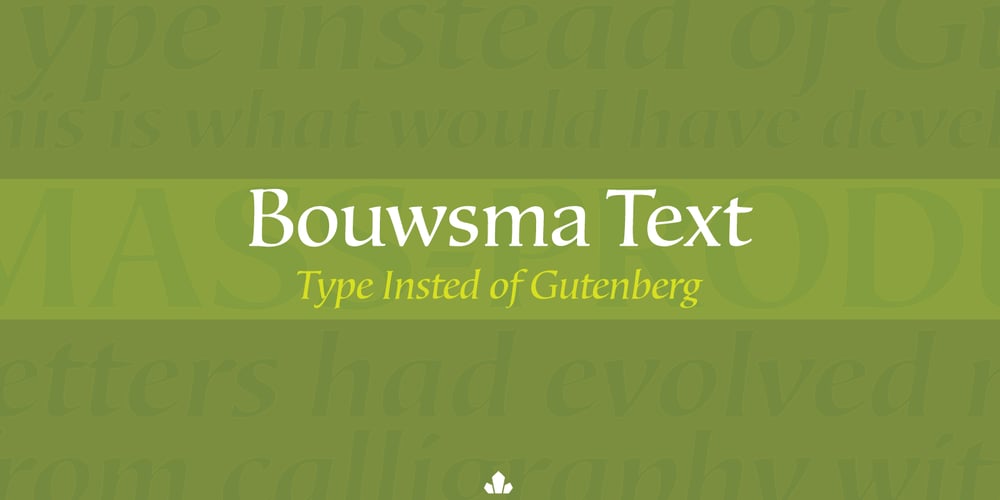
Bouwsma Text
Bouwsma Text font
Bouwsma Text Font Family was designed by Philip Bouwsma and published by Canada Type. Bouwsma Text contains 32 styles and family package options. Bouwsma Text is what Roman type would look like if it had been designed by calligraphers instead of metalworkers. The formal harmony of the Roman capitals, with tapered stems, graduated curves and serifs which are natural entrances and exits for the broad pen. These serifs seamlessly work in relativity with the stroke weight, decreasing in size when the stroke increases. The above is extended to the minuscule book hand. This lower case has evolved with the knowledge of its history in a seamless web from the uncial and half-uncial, the Carolingian bookhand and its profusion of styles, finally merging with the capitals in the sober, tempered forms of modern use. The moving calligraphic stroke brings life and instant familiarity to the letters, combining classical legibility and proportion with the warmth and presence of a manuscript. Bouwmsa Text is available in all popular font formats, and its character set covers a wide range of codepages, including Central and Eastern European languages, Esperanto, Turkish, Baltic, Celtic/Welsh.